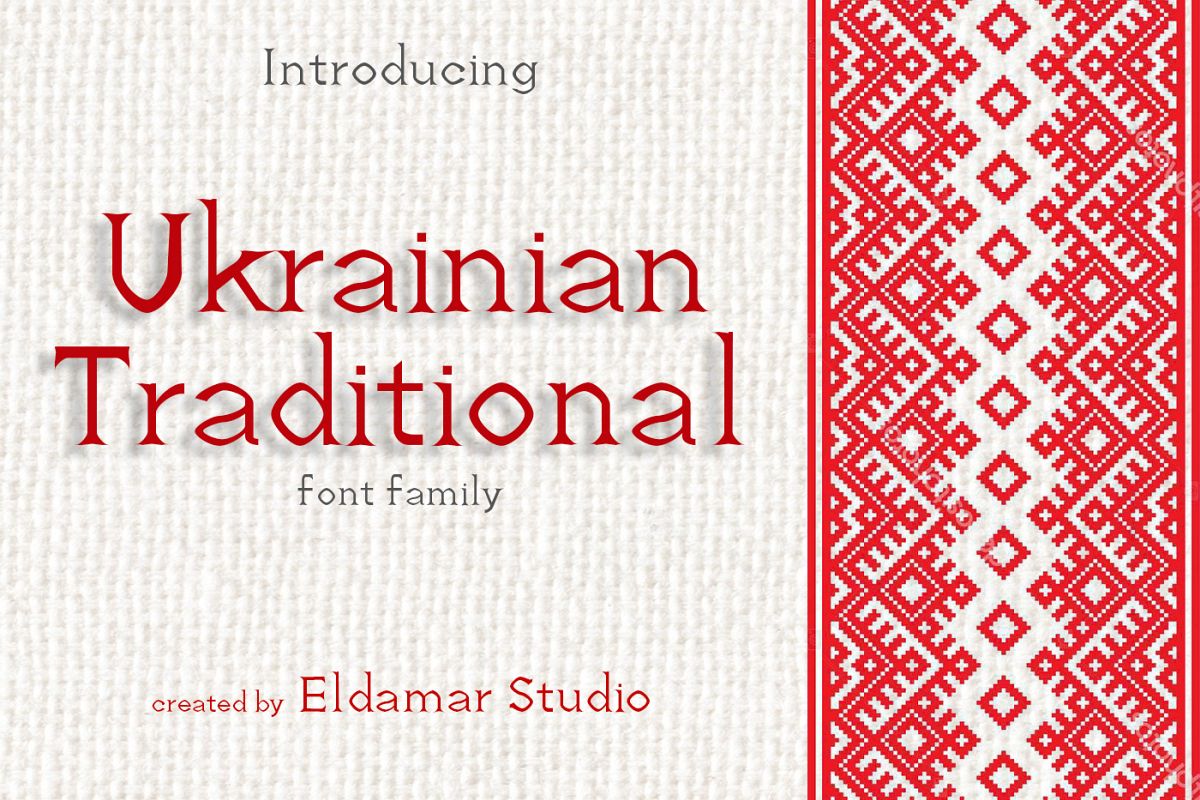
Ukrainian Traditional Font
Ukrainian
Traditional Font it's a wonderful font with a unique, detailed and
handmade look. These fonts looks amazing in all caps with a wide-set
spacing if you want to try a classy look, or beautiful on its own in
capital and lowercase letters for something completely timeless. Perfect
for gorgeous logos, displays, headers, invitations, save the dates,
weddings, titles, web layouts and branding, etc.